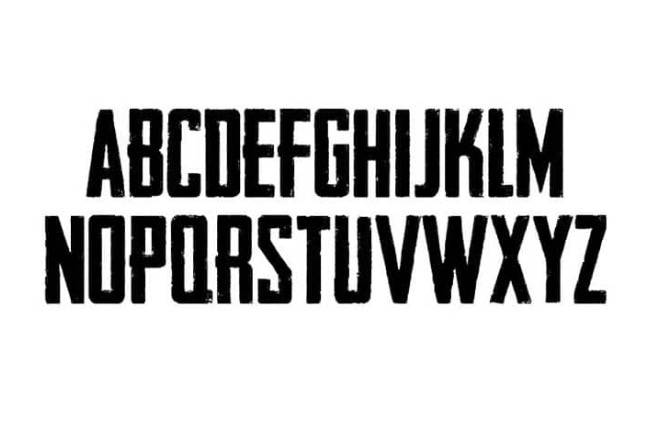
About Pubg font! Pub G game was released by PUBG Group in 2017. This is an illustrious multiplayer battle video game, and nowadays, there are many online players and with the features of PUBG and its best graphics helps to increase the fan following day by day.
Headliner No. 45 font has used in PUB G game title and headlines. And the designers know the importance of the font used for the Pubg’s logo. Wow, do you know about the designer of Headliner No. 45 font? Kevin Christopher was created Headliner No. 45 font (font PUBG) and published that in 2012.
Pubg font is a distinctive typeface, it has 2 different styles including italic & regular. This font was designed with about 275 characters and Pubg font has multiple kinds of style, numerals as well as lining and text figures. These characteristics shape PubG font into a glamorous display font primarily used for titles and large typography settings.
Pubg Display font
Headliner No. 45